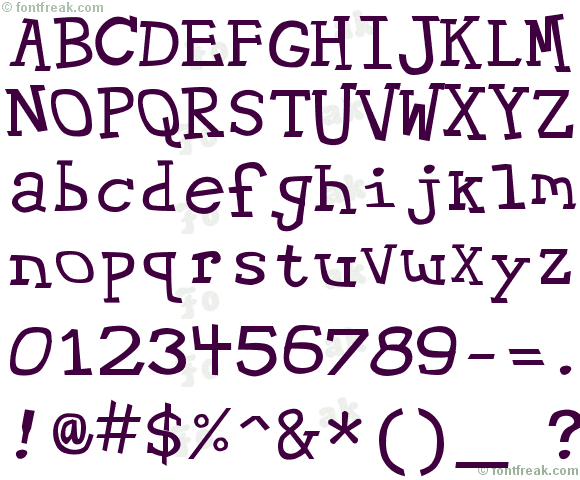
Hypewriter
The Hypewriter font by Eric Perlin is a captivating display typeface that embodies the nostalgic charm of vintage typewriters. This font is categorized as a decorative typeface, characterized by its unique, uneven strokes that mimic the appearance of typewritten text. With a medium stroke weight and minimal contrast, Hypewriter offers a straightforward yet charming aesthetic, making it versatile for various creative applications. The letters are spaced with intention, providing a clean read while retaining a distinctively retro feel that evokes a sense of authenticity.
Hypewriter is an excellent choice for a wide range of use cases. It lends itself beautifully to wedding invitations, where its quaint style can add a touch of personality to the occasion. Additionally, it works well on movie posters, giving a vintage flair that can evoke a sense of nostalgia. Restaurant menus can benefit from Hypewriter's inviting appearance, making dishes feel more home-cooked and approachable. Content creators will find it useful for blog headers or social media graphics, where a unique font can help capture attention. Finally, small business owners can utilize this font in branding materials to convey a sense of craftsmanship and individuality.
Targeted towards graphic designers, small business owners, and content creators, Hypewriter stands out for its ability to transport viewers to a different time while remaining relevant in contemporary design. The Hypewriter font free download makes it accessible for anyone looking to incorporate a touch of classic style into their work without any financial commitment. Its distinctive visual characteristics and versatile applications make it a must-have addition to any designer's toolkit.